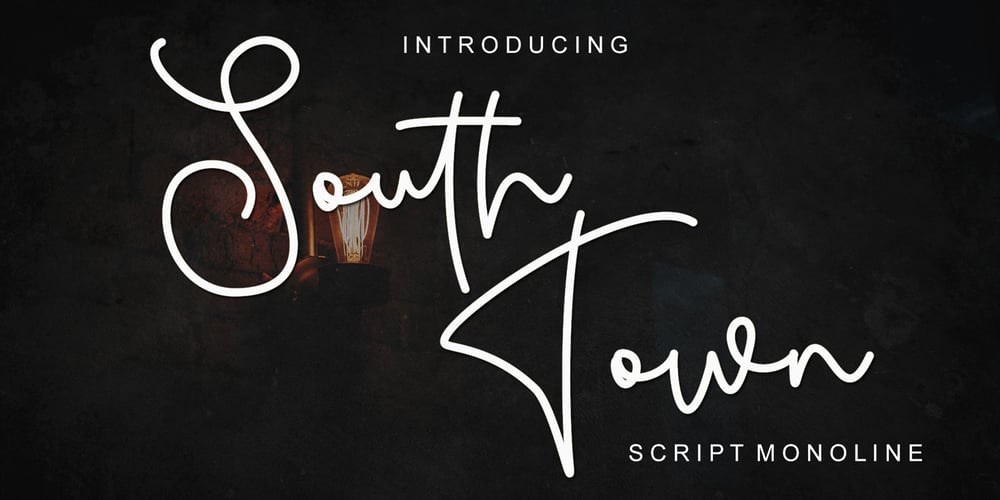
South Town Font Family was designed by Ahmad Afandi and published by Letterafandi Studio. South Town contains 1 styles and family package options. South Town is a simple and flowing handwritten font. This adaptable font will look great on a variety of design ideas. It will add a fun and friendly touch to each of your projects!